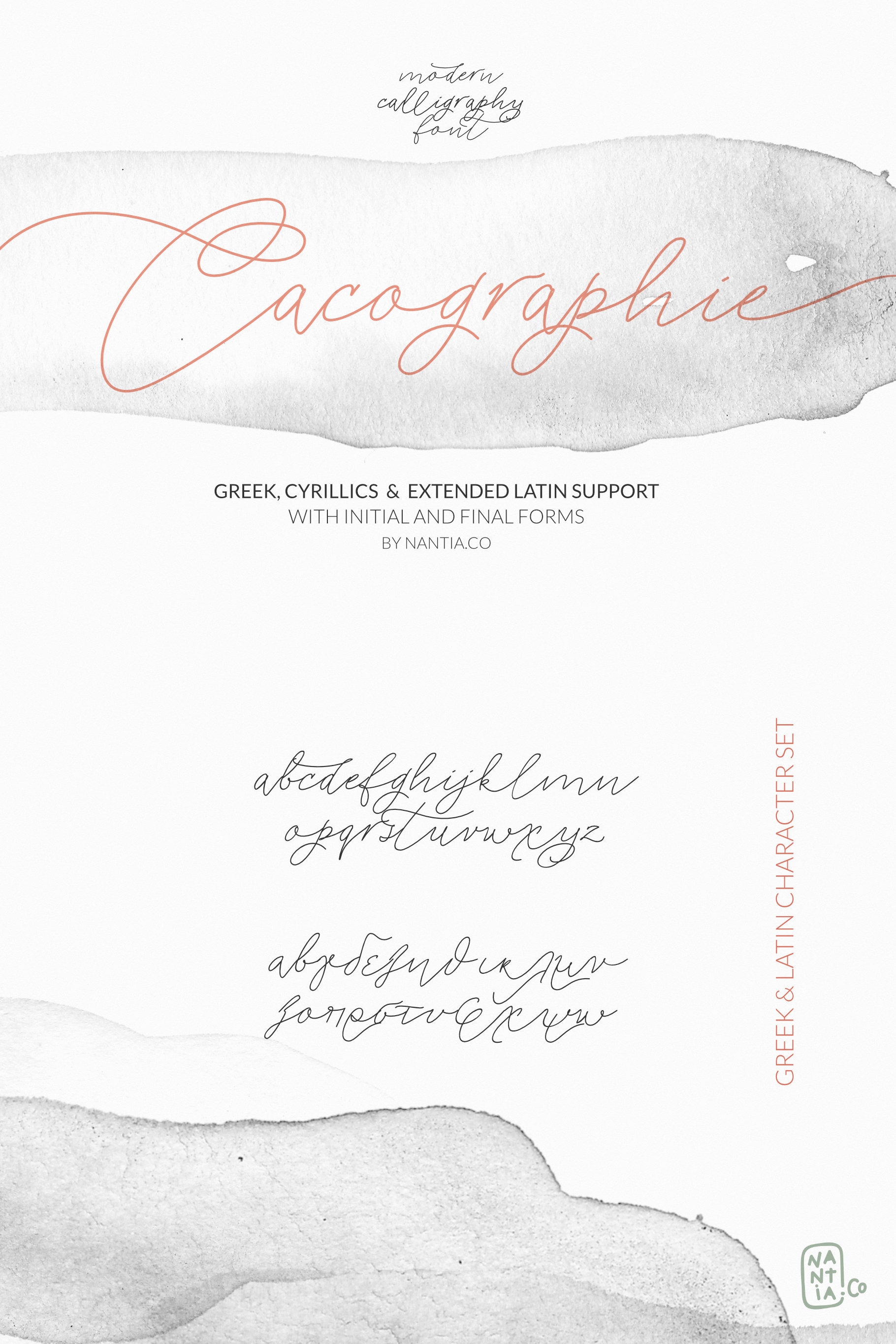
Greek font Cyrillic Cacographie
Let me introduce you to Cacographie Greek Cyrillic Calligraphy Font!
Cacographie Greek Cyrillic Calligraphy Font is an elegant modern calligraphy typeface, which supports Extended Latin, Cyrillics, and Greek character sets. This font does not only contain a complete set of lower and uppercase letters, punctuation, numbers, but also a set of ligatures and two sets of alternates. Equally important is the fact that the font has diacritics for multilingual support. Of course, with this typeface, you have access to a complete Greek set of characters, with diacritics and Greek ligatures. Cacograhie is a high-quality calligraphy font that can infuse any project with glamorous vibes.
Cacographie is the perfect wedding font if you want to achieve a fairy-tale style on your wedding invitation. For a whimsical style, you can pair the font with a strong color palette and metallic papers.
Of course, this modern script font is perfect for your graphic design needs like social media quotes, blog headers, posters, stationery, and why not branding, packaging, and logotypes. In addition, this calligraphy font is ideal for the fashion and apparel industry, if you want to achieve a glamorous chic, yet modern style.
In conclusion, Cacographie is a glamorous, modern calligraphy typeface, with:
Extended Latin character set, Greek character set, punctuation marks, ligatures in both Latin & Greek alternate glyphs diacritics and numbers.